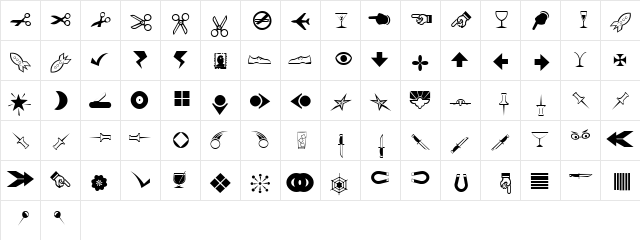
Dingbats4 Normal
Design Context for Dingbats4 Typeface
Dingbats4 takes a measured approach to typography — its balanced proportions and neutral character make it a reliable workhorse for both digital and print work.